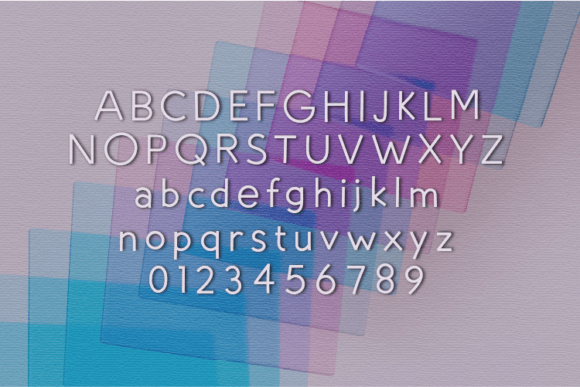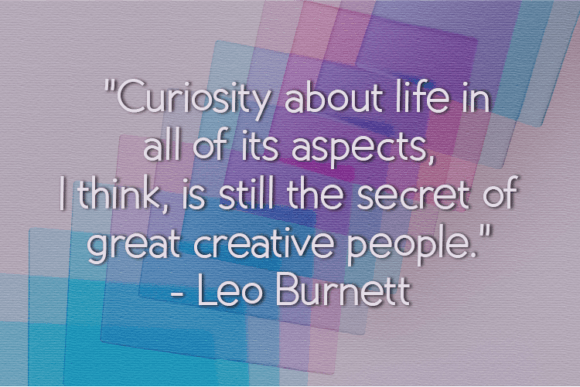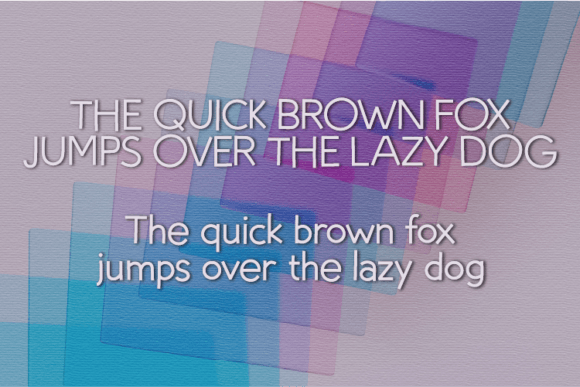
Bubble Fantasy Font
About Bubble Fantasy Font
“Bubble Fantasy” is a delightful and approachable handwritten font that radiates a sense of neatness and friendliness. It was meticulously designed for individuals seeking a charming and rejuvenating touch for their design projects.
The unique charm of “Bubble Fantasy” lies in its ability to infuse a sense of beauty and freshness into your designs. This font effortlessly conveys a feeling of warmth and approachability, making it a perfect choice for various creative endeavors.
For different design concepts, “Bubble Fantasy” brings a sense of versatility and allure:
– In branding and logo design, “Bubble Fantasy” adds a touch of beauty and refreshment. Its handwritten style communicates a personal and inviting brand image, making your logo memorable and relatable.
– In digital and print media, “Bubble Fantasy” enhances the visual appeal of text and graphics. Whether you’re working on web graphics, marketing materials, or social media posts, this font lends a friendly and engaging quality to your content.
– For invitations and personal projects, “Bubble Fantasy” infuses a sense of beauty and authenticity into your designs. Whether you’re creating event invitations, greeting cards, or personal stationery, this font elevates the overall aesthetics, making your projects visually pleasing and memorable.
– In presentations and professional documents, “Bubble Fantasy” can help convey a sense of friendliness and creativity. Its neat yet friendly appearance ensures readability while adding a touch of charm to your content.
In summary, “Bubble Fantasy” is a neat and friendly handwritten font that excels in various design contexts. Its versatility, beauty, and refreshing style make it an ideal choice for a wide range of creative projects. When you incorporate “Bubble Fantasy” into your designs, you’ll discover how it effortlessly enhances their overall aesthetics, giving them a beautiful and inviting character that resonates with your audience. Add “Bubble Fantasy” to your design toolbox, and experience how it transforms your ideas into visually captivating and refreshingly charming creations.